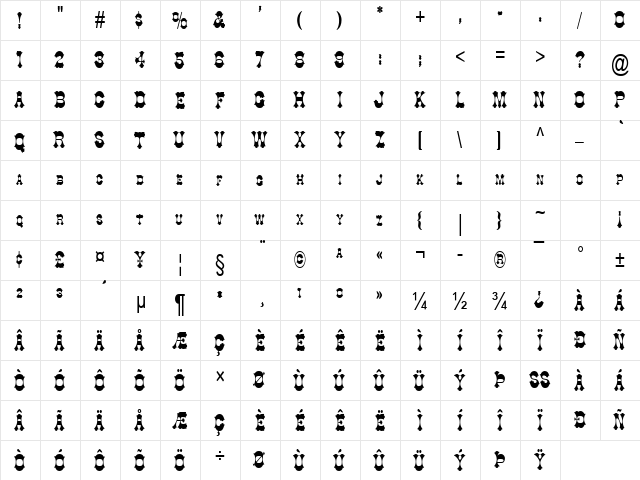
Cowboy Thin Normal
Design Context for Cowboy Thin Typeface
Cowboy Thin echoes the hand-painted signage and woodblock typography of the American frontier, with a warm, rugged personality. Its slender proportions lend an understated elegance to any composition.
A natural fit for craft spirits, ranch branding, rodeo events, and Americana-inspired design work.
Font Pairing: Combine Cowboy Thin with a simple slab or neutral sans — period-accurate companions reinforce the vintage feel without competing for attention.
Pro Tip: Use Cowboy Thin for short, impactful bursts of text — it shines in poster headlines and product names rather than extended copy.